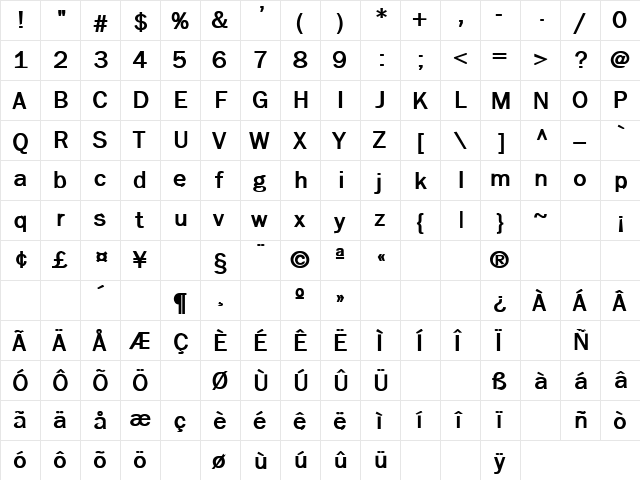
Moby Dick 4 Bold Font Preview
Moby Dick 4 Bold
Moby Dick 4 Bold Font Details
Design Context for Moby Dick 4 Typeface
Moby Dick 4 offers clean, dependable letterforms without strong stylistic allegiance, making it a practical choice for designers who need flexibility. The heavy weight commands attention and anchors typographic hierarchies.